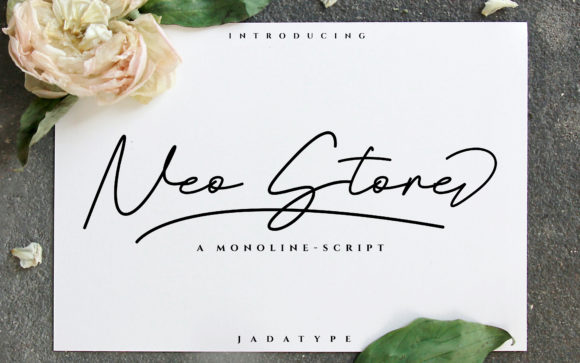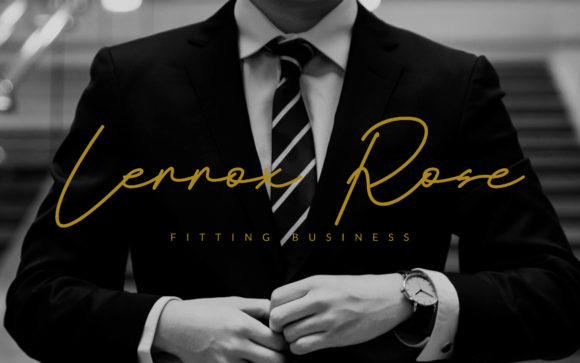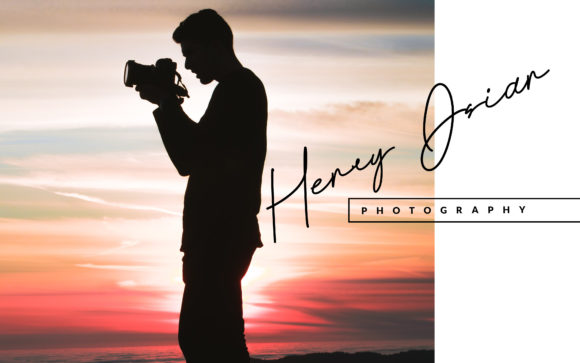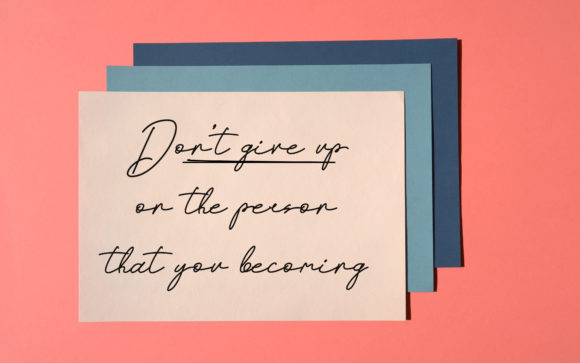
About Neo Stone Font
Neo Stone is an elegant and flowing handwritten font. This font is PUA encoded which means you can access all of the glyphs and swashes with ease! It features a varying baseline, smooth lines, gorgeous glyphs and stunning alternates.